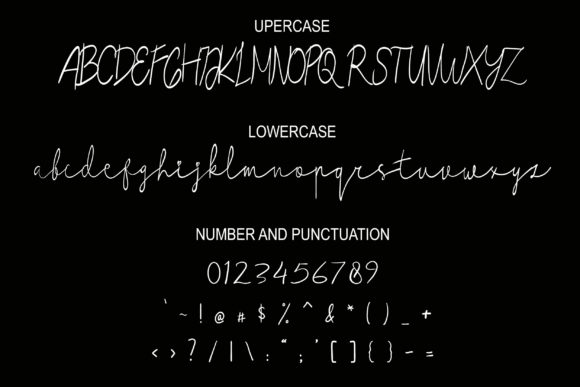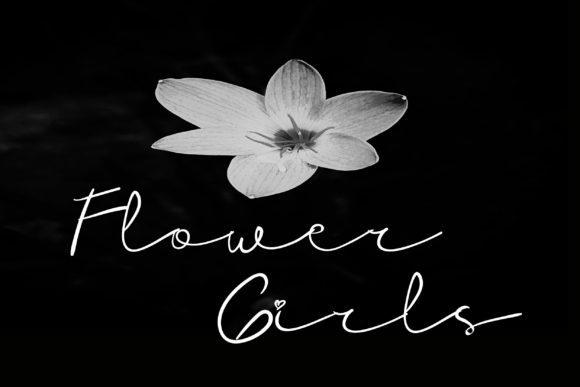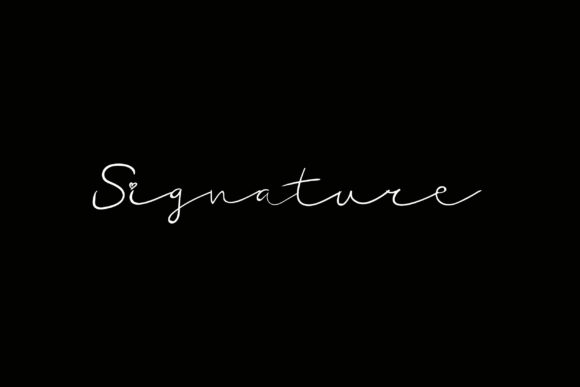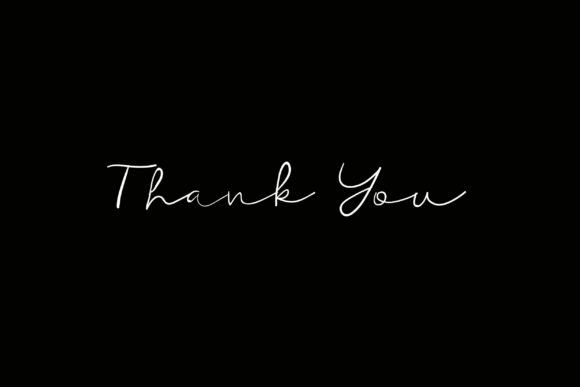
Introducing Amarta Font: The Epitome of Elegance and Versatility
Are you on the lookout for a font that exudes elegance, sophistication, and a touch of whimsy? Look no further than Amarta Font, a delicate and elegant handwritten font that is sure to capture your heart. With its distinct and well-balanced letters, Amarta Font is a masterpiece that can elevate any design project to new heights.
What Makes Amarta Font So Special?
Amarta Font is a unique and versatile font that boasts a range of characteristics that set it apart from other fonts. Its delicate and elegant handwritten style makes it perfect for a variety of design applications, from wedding invitations and branding materials to social media graphics and digital art.
One of the standout features of Amarta Font is its well-balanced letters. Each letter has been carefully crafted to ensure that it flows seamlessly into the next, creating a beautiful and harmonious visual effect. This attention to detail makes Amarta Font a joy to use and behold.
The Versatility of Amarta Font
Amarta Font is incredibly versatile, making it suitable for a wide range of design projects. Whether you’re looking to create a romantic and whimsical design or a more formal and sophisticated one, Amarta Font can help you achieve your goals.
Here are just a few examples of the many ways you can use Amarta Font:
- Wedding Invitations: Amarta Font is perfect for wedding invitations, ceremony programs, and other wedding-related design materials. Its elegant and sophisticated style will add a touch of romance and whimsy to your designs.
- Branding Materials: Amarta Font can be used to create beautiful and eye-catching branding materials, such as logos, business cards, and letterheads.
- Social Media Graphics: Amarta Font can be used to create stunning social media graphics, including Facebook and Instagram posts, Twitter headers, and more.
- Digital Art: Amarta Font can be used to create beautiful digital art, including illustrations, paintings, and mixed media designs.
Tips for Using Amarta Font
Here are a few tips for using Amarta Font to get the most out of this beautiful font:
- Experiment with Different Sizes: Amarta Font looks great in a variety of sizes, from small and delicate to large and bold. Experiment with different sizes to find the one that works best for your design.
- Pair it with Other Fonts: Amarta Font can be paired with other fonts to create a unique and visually appealing design. Try pairing it with a bold and modern font for a striking contrast.
- Use it for Headings and Titles: Amarta Font is perfect for headings and titles, where its elegant and sophisticated style can really shine.
In conclusion, Amarta Font is a beautiful and versatile font that is sure to delight designers and crafters alike. Its delicate and elegant handwritten style, combined with its well-balanced letters and incredible versatility, make it a must-have font for any design project.